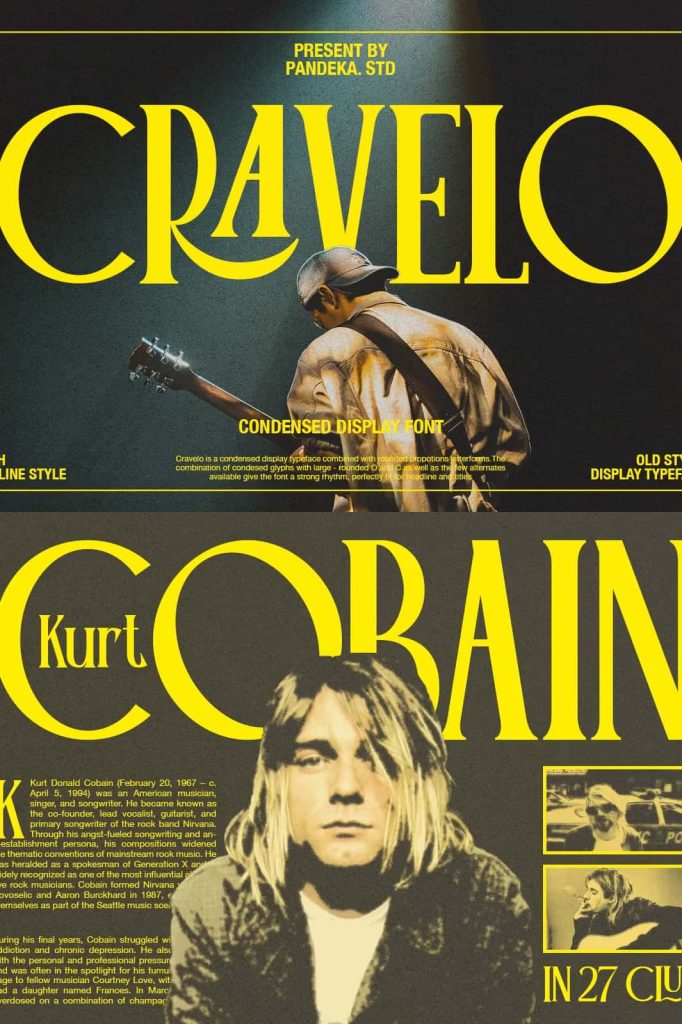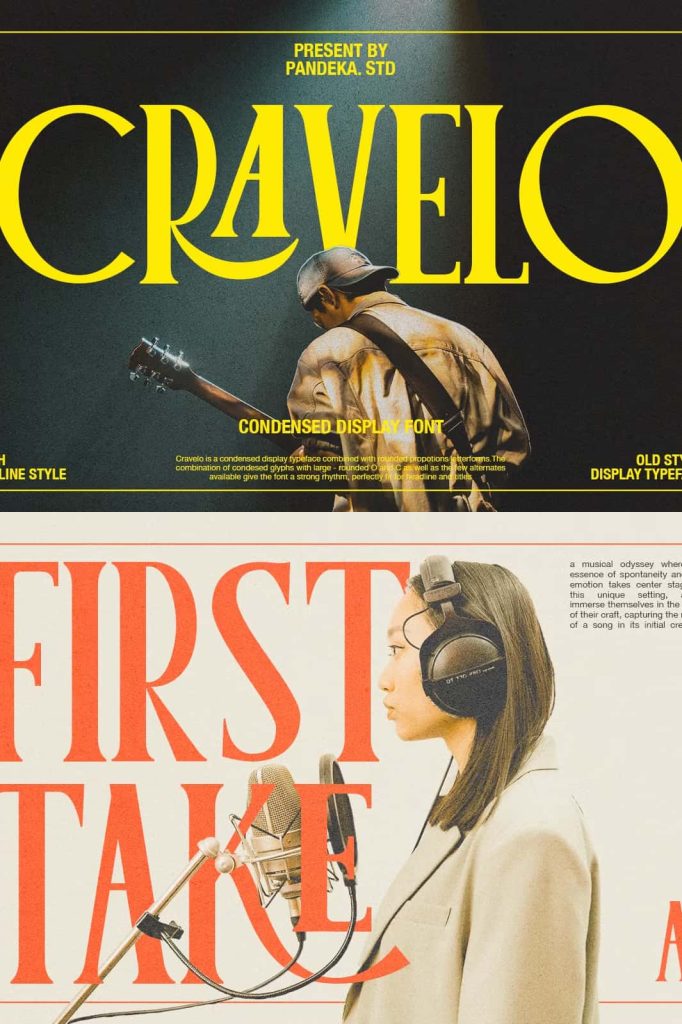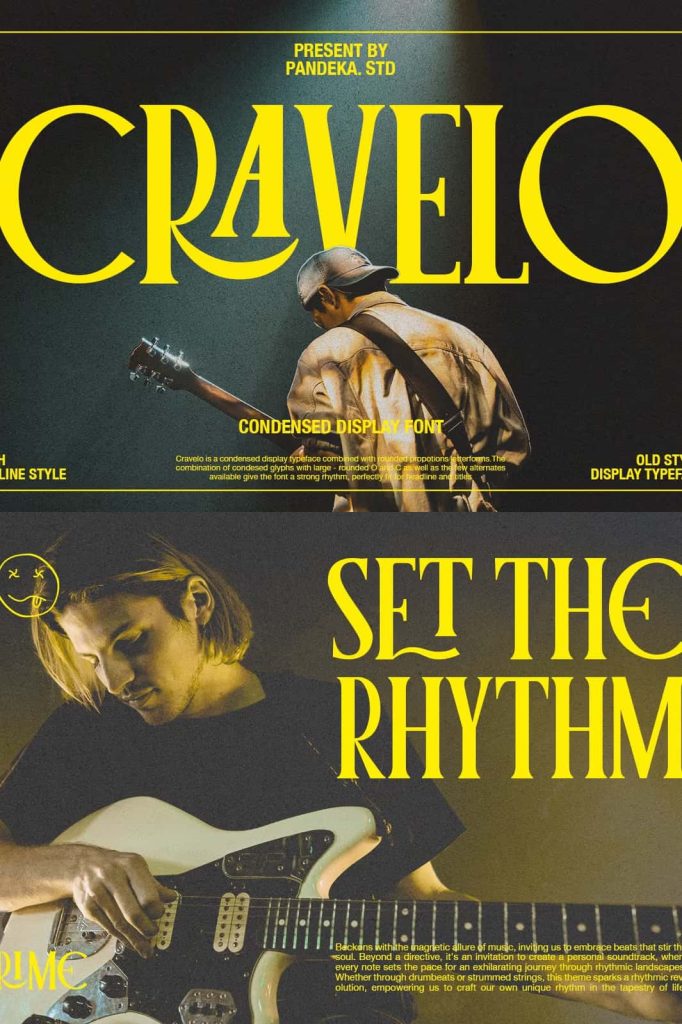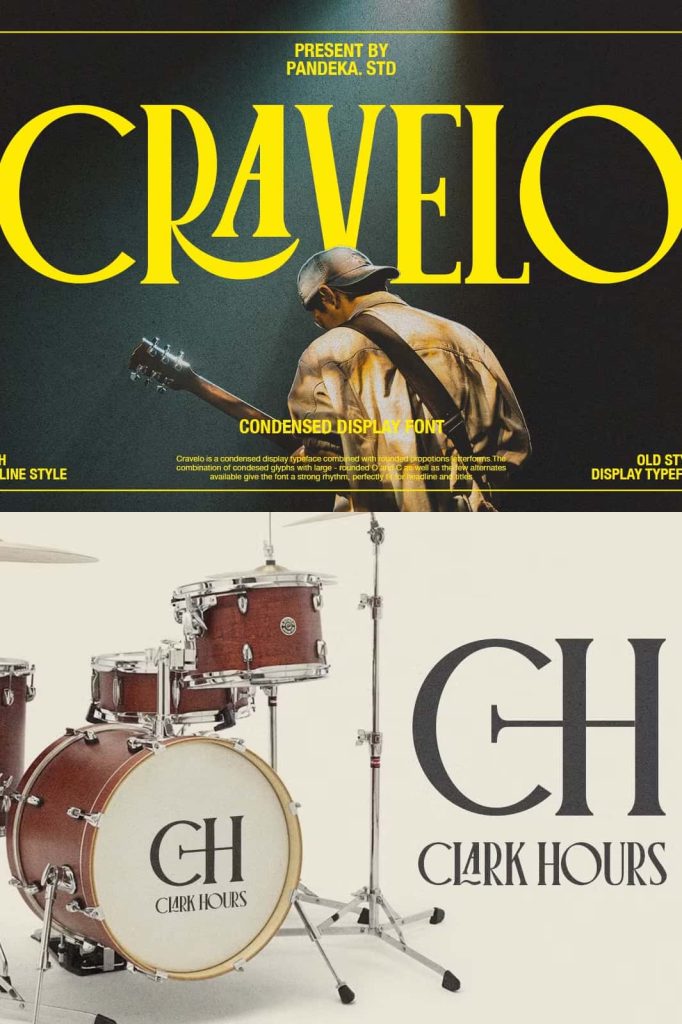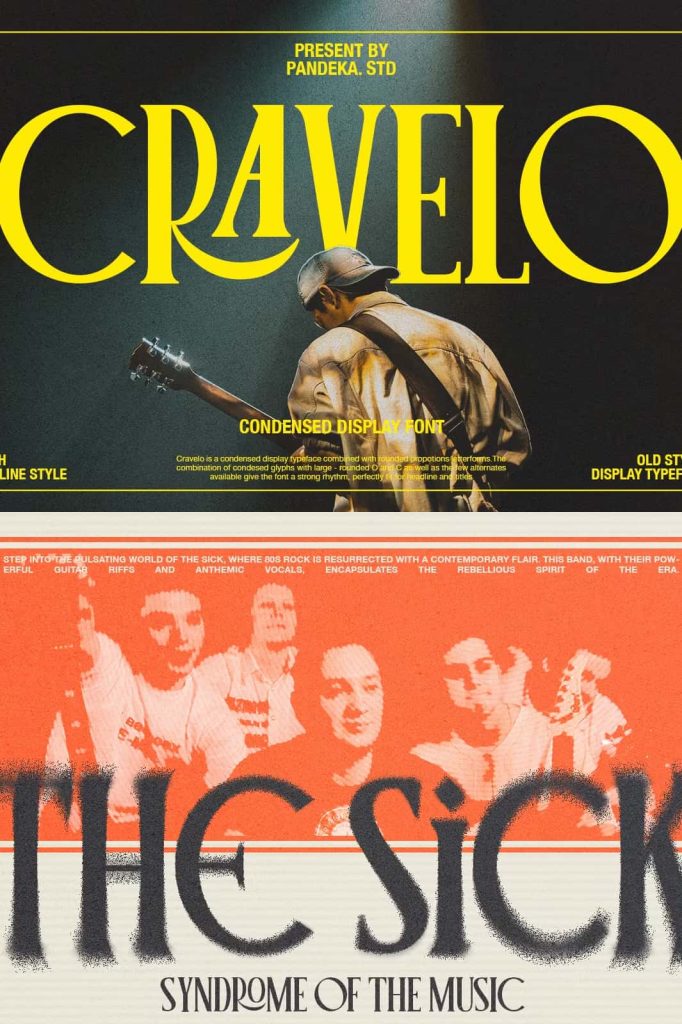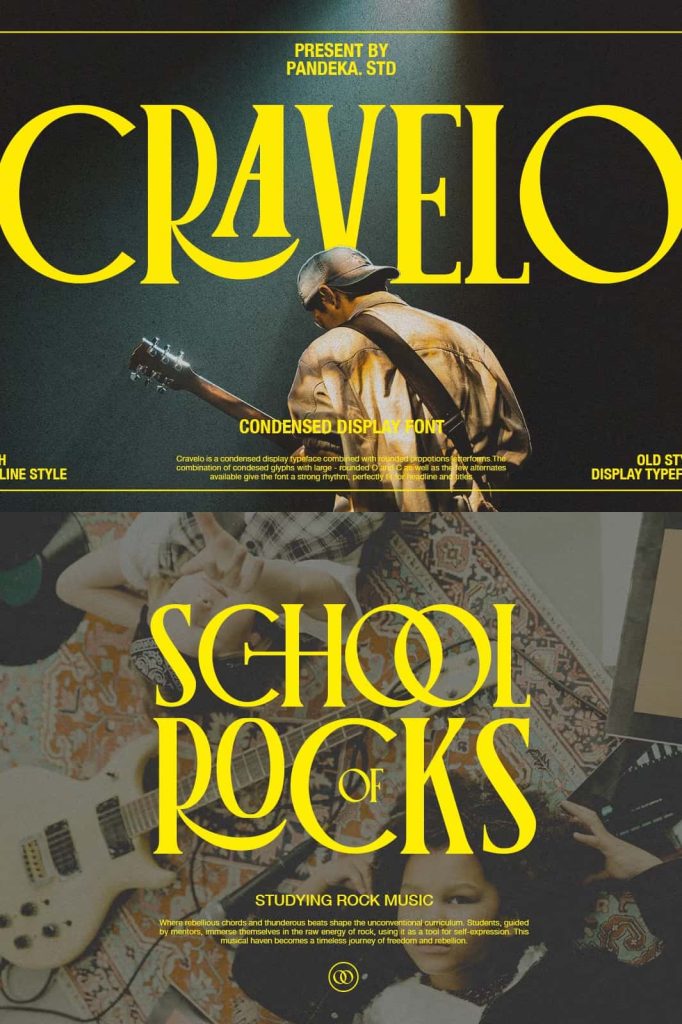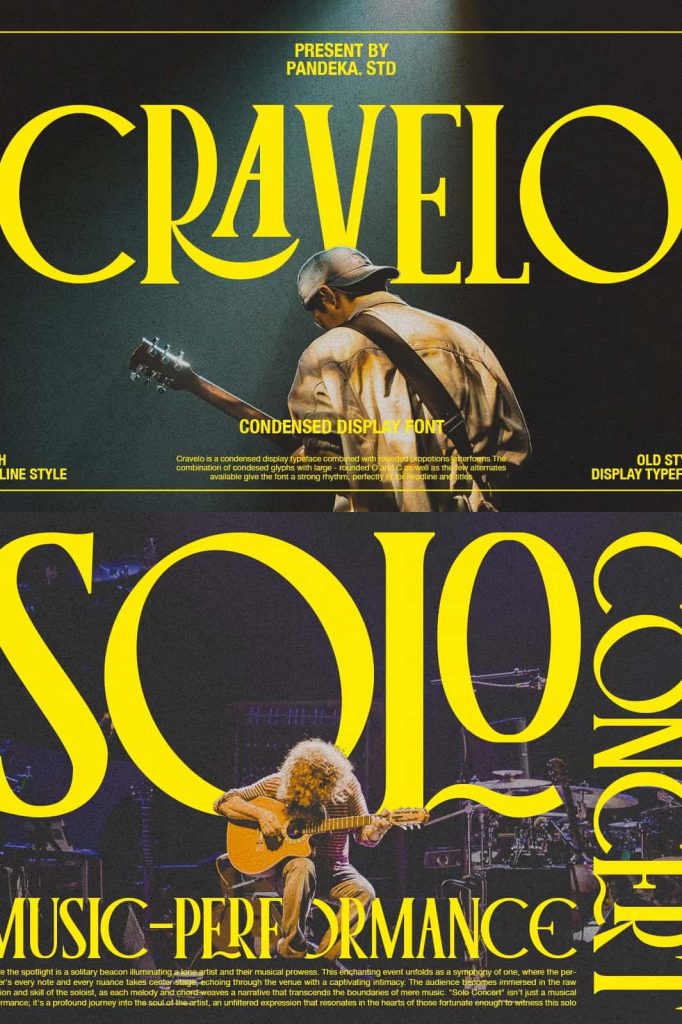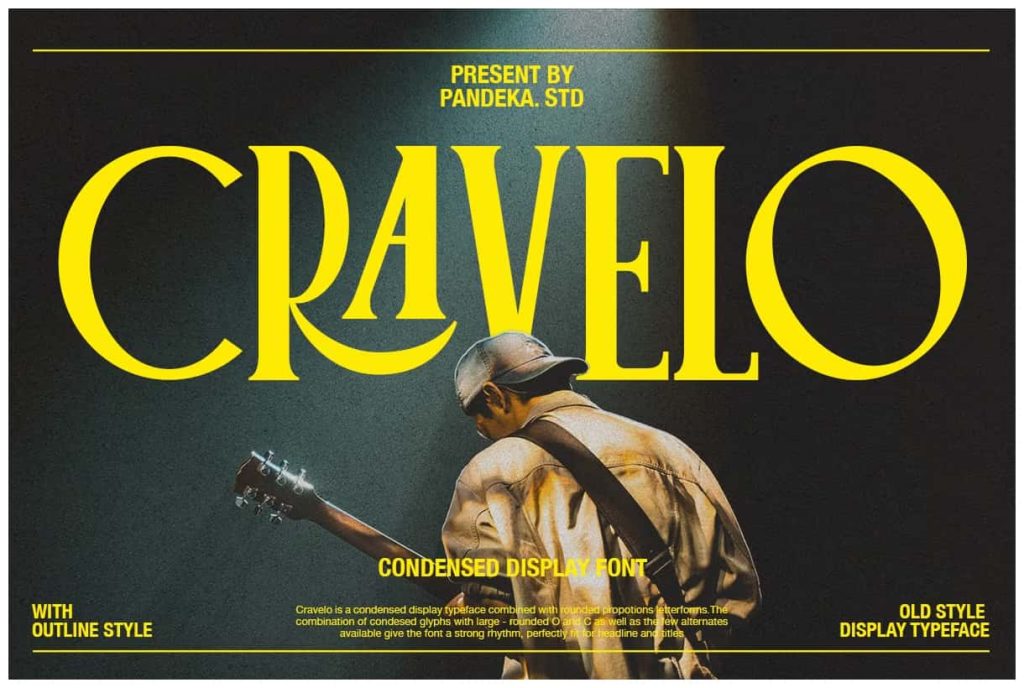
Cravelo – Vintage Rounded SerifleastedApril 6, 2025Fonts Cravelo is a vintage retro condensed display typeface combined with rounded proportions lettersforms. Download